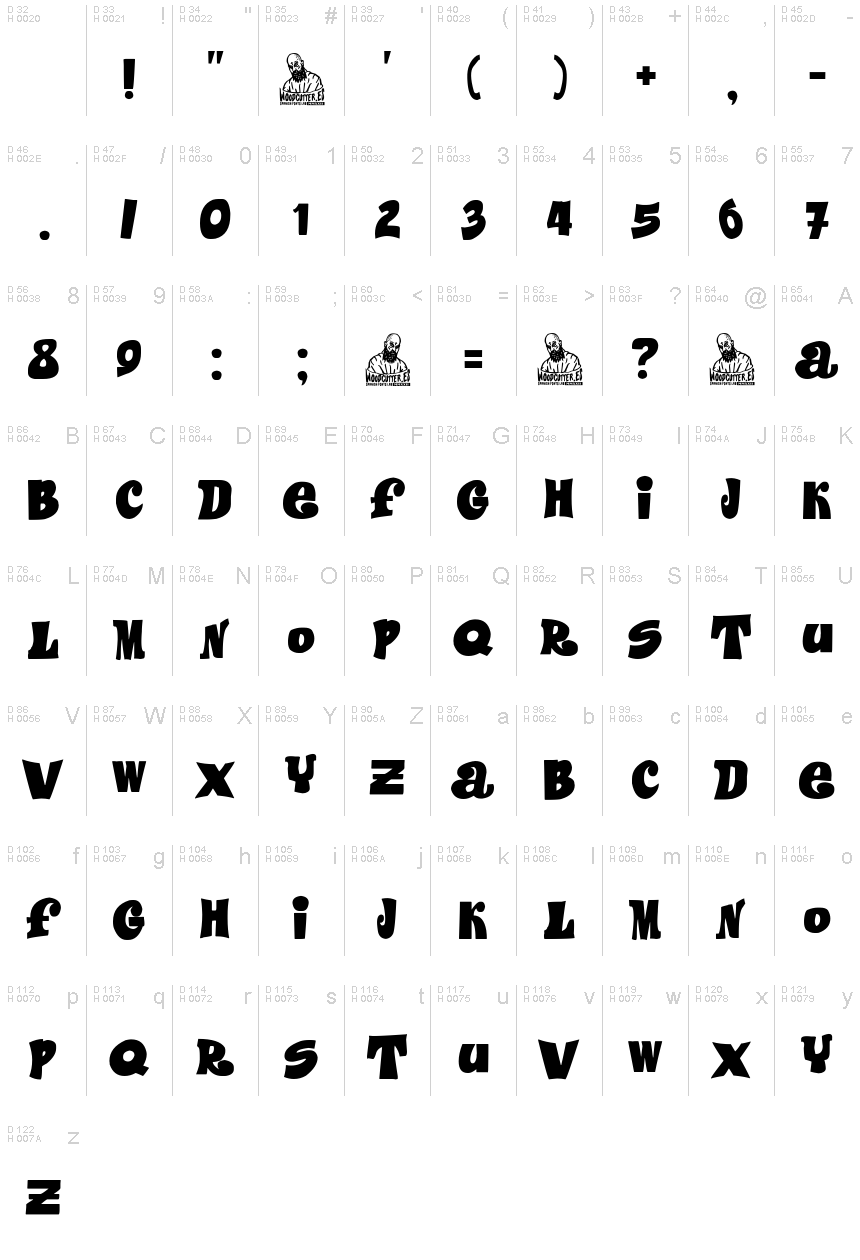
Mortadelo y Filemón
Mortadelo y Filemón, a creation by Woodcutter Manero, is an extra-bold display font that packs a playful punch with its cartoon style. Exuding fun and creativity, this typeface draws inspiration from comic book art, making it an ideal choice for projects aiming to capture the essence of whimsy and lightheartedness. Each character in Mortadelo y Filemón boasts exaggerated proportions and smooth curves, lending itself to dynamic visuals that grab attention.
Its aesthetic appeal lies in its ability to convey mirth and vivacity, making it perfect for children's books, animated movie titles, party invitations, or any design that needs a touch of humor and joy. The font's substantial weight ensures excellent readability at larger sizes which is crucial for impactful headlines and displays. Embrace the lively spirit of Mortadelo y Filemón to infuse your creative works with charm and personality!